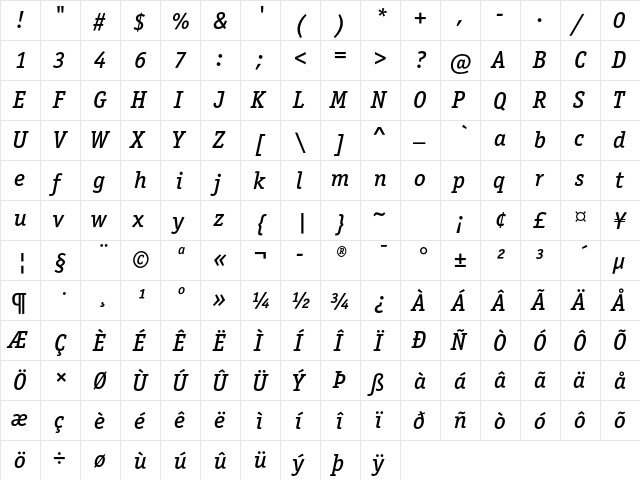
OfficinaSerITCStd MediumItalic
| Designer | Erik Spiekermann and Ole Schaefer |
Design Context for OfficinaSerITCStd Typeface
OfficinaSerITCStd is a composed and adaptable typeface that performs quietly and consistently across a wide range of design contexts. Its italic angle brings a sense of urgency and motion to the letterforms.
Pro Tip: Use OfficinaSerITCStd for emphasis, pull quotes, and subheadings where its slanted energy can add rhythm to the layout.